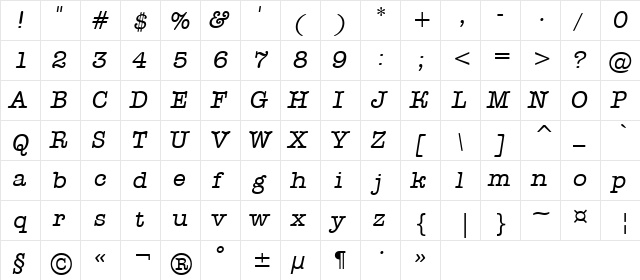
a_OldTyper Italic Font Preview
a_OldTyper Italic
a_OldTyper Italic Font Details
Design Context for a_OldTyper Typeface
a_OldTyper takes a measured approach to typography — its balanced proportions and neutral character make it a reliable workhorse for both digital and print work. Its italic angle brings a sense of urgency and motion to the letterforms.
Pro Tip: Use a_OldTyper for emphasis, pull quotes, and subheadings where its slanted energy can add rhythm to the layout.